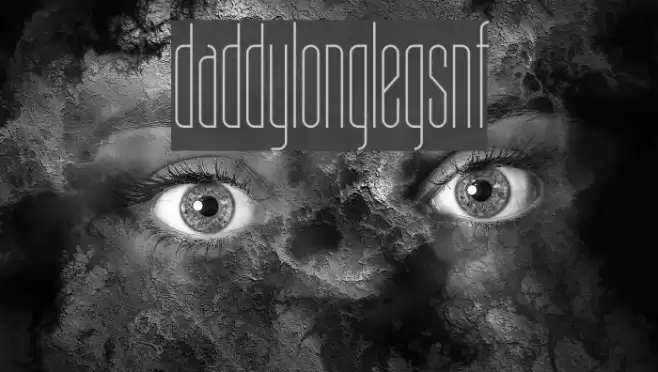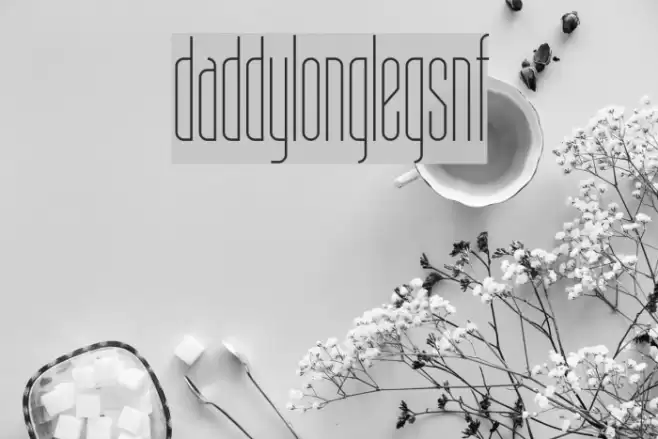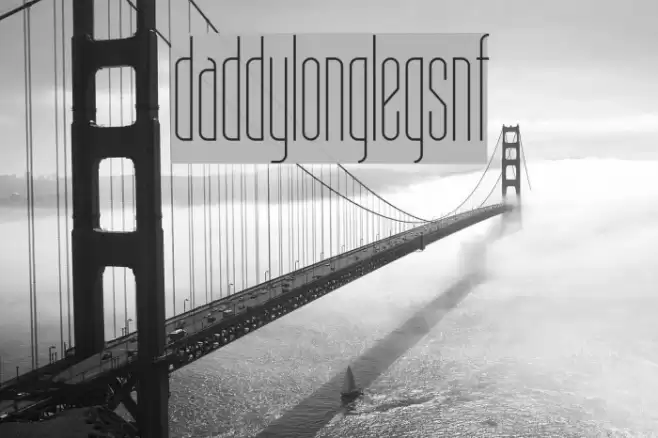
DaddyLonglegsNF Font
DaddyLonglegsNF Description
This font features an ultra-condensed, elongated design with a modern and minimalist aesthetic. The characters are tall and narrow, with a consistent stroke width that gives it a sleek and elegant appearance. The uppercase and lowercase letters share a similar height, enhancing the uniformity and streamlined look. The numerals and special characters maintain the same elongated style, ensuring a cohesive visual experience. This font's unique structure makes it stand out, offering a distinctive option for creative projects.
A modern, ultra-condensed font with elongated, sleek characters from Uncategorized fonts.
- Proposed Projects: Ideal for fashion magazines, luxury branding, modern art posters, and innovative product packaging.
- Weight: Light
- Character Spacing: Tight